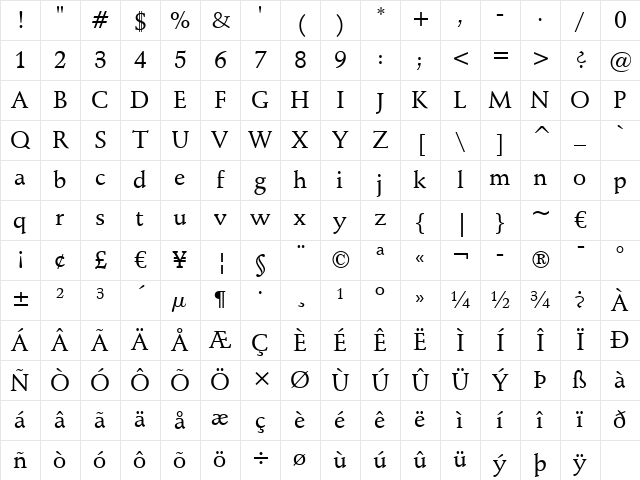
Schneidler Md BT Medium
Schneidler Md BT Family
Design Context for Schneidler Md BT
Schneidler Md BT is a composed and adaptable typeface that performs quietly and consistently across a wide range of design contexts.